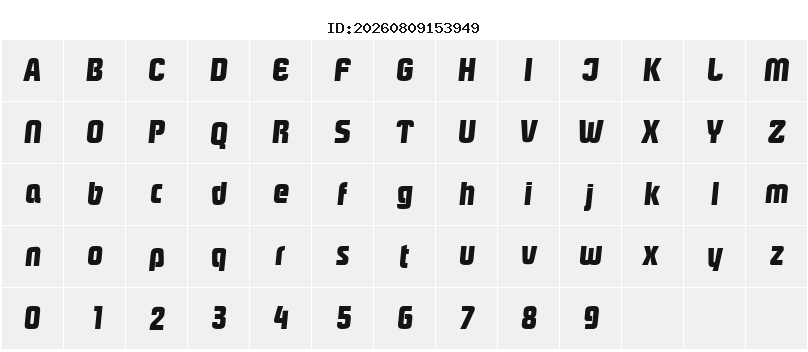
• Font Name: Pasadena
• Full Font Name: Pasadena Bold Italic
Pasadena.ttf is a modern, elegant sans-serif font designed for ultimate readability and visual harmony. Perfect for branding, headlines, web design, and print materials.